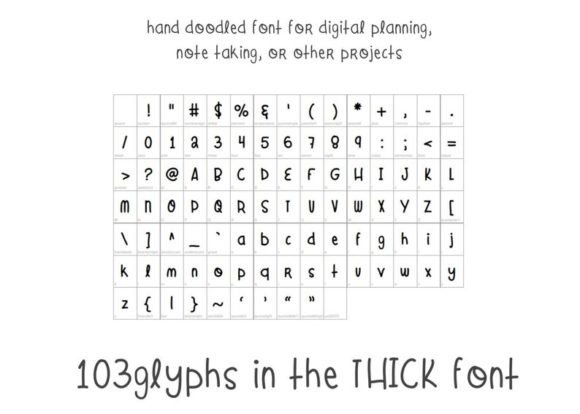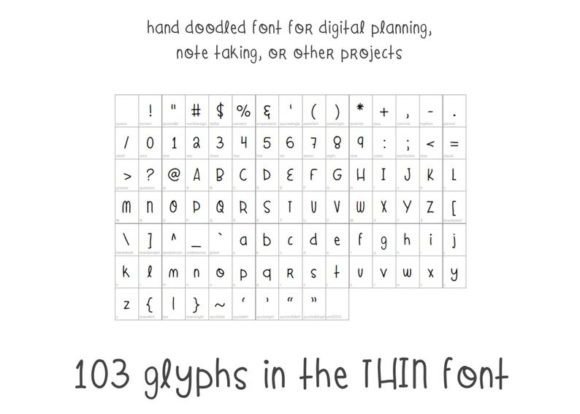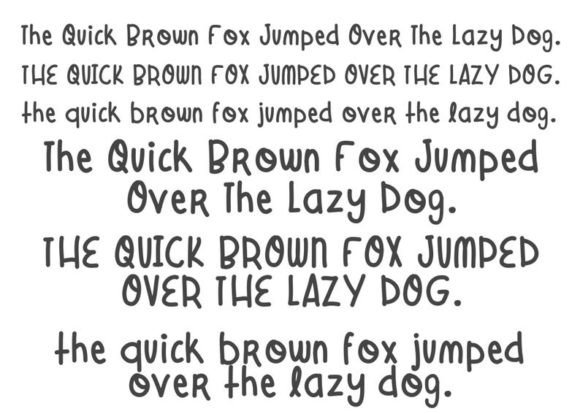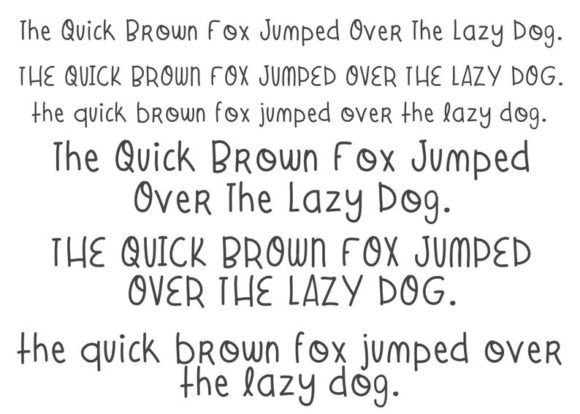
Introduction to Doodle Board Font
Remember the excitement of rummaging through a dusty old art supply box as a kid, unearthing a half-used set of markers or a crumpled up notebook page filled with playful doodles? For many creatives, those carefree moments sparked a lifelong passion for art and design. Now, imagine bringing that same whimsical charm to your digital planning and design projects with the Doodle Board Font.
Designed specifically for digital use, this hand-doodled font offers a unique twist on traditional chalkboard typography. With its transparent background, the Doodle Board Font is perfect for adding a touch of personality to your high-quality designs, from planners and journals to social media graphics and marketing materials.
As a valuable design resource, the Doodle Board Font is a must-have for any creative project seeking a playful, eye-catching look. And the best part? You can download it for free, making it an accessible addition to your design arsenal.
Doodle Board Font
- High-quality design resource ideal for creative projects, featuring a unique and playful style.
- Includes a transparent background, allowing for easy customization and versatility in design applications.
- Perfect for use in digital design, scrapbooking, and other creative pursuits where a whimsical, hand-drawn feel is desired.
Honest Review: Doodle Board Font
I recently stumbled upon the Doodle Board Font and was excited to try it out for my next creative project. This free download has been a game-changer for me, offering a unique and quirky design resource that adds a personal touch to my work.
- High-quality design: The Doodle Board Font is beautifully crafted, with a transparent background that makes it easy to use on any background image.
- Unique style: The font’s doodle-like aesthetic adds a creative and whimsical touch to any project, making it perfect for artistic and design-heavy projects.
- Limited character set: The font only includes a limited character set, which may not be suitable for projects that require a wide range of characters.
- Not suitable for body text: Due to its playful and artistic nature, the font is not ideal for use in body text or large blocks of text.
Overall, I’m really impressed with the Doodle Board Font and would highly recommend it to anyone looking for a unique and creative design resource. With a little creativity, this font can add a whole new level of personality to your design projects.
Doodle Board Font
The Doodle Board Font is a high-quality design resource that offers a unique and creative way to add visual interest to your projects. With its transparent background, it can be easily used in a variety of applications, including digital design and print materials.
For the best results, be sure to use the Doodle Board Font in conjunction with other high-quality design resources, such as high-resolution images and graphics. This will help to create a cohesive and visually appealing design.
The Doodle Board Font is ideal for a variety of creative projects, including:
- Birthday cards and invitations
- Wedding stationery and decorations
- Party decorations and signs
- Personalized gifts and merchandise